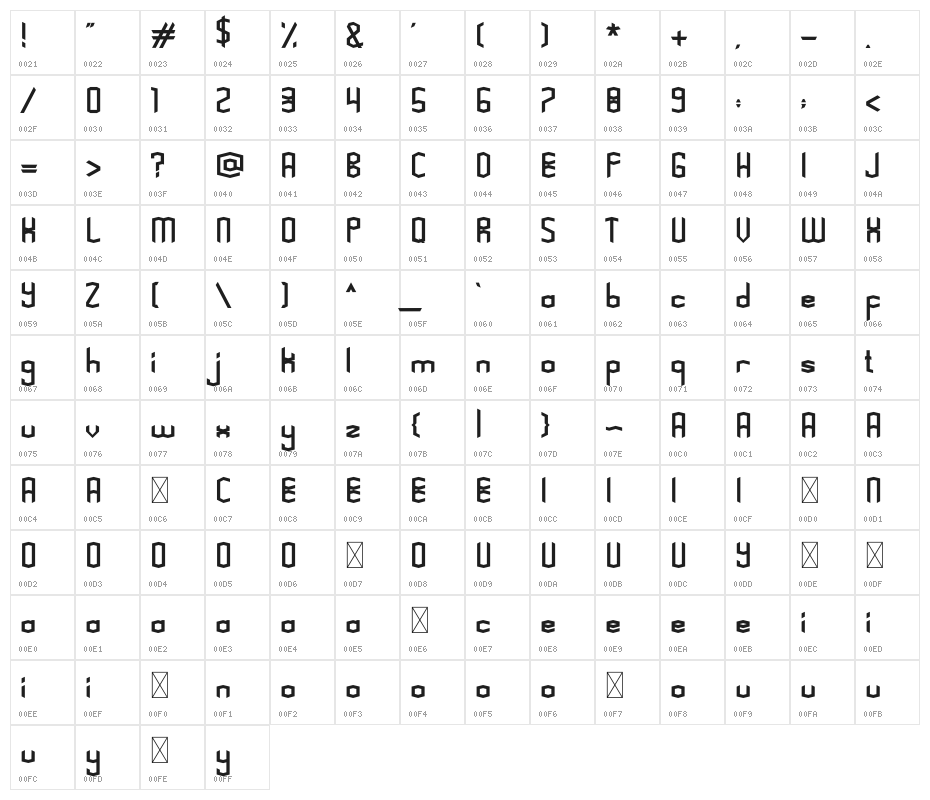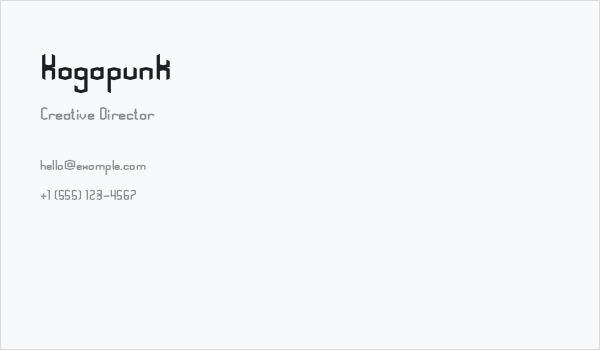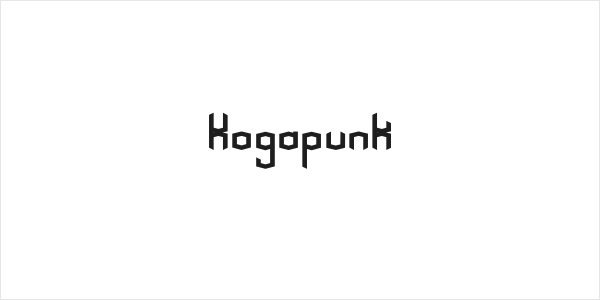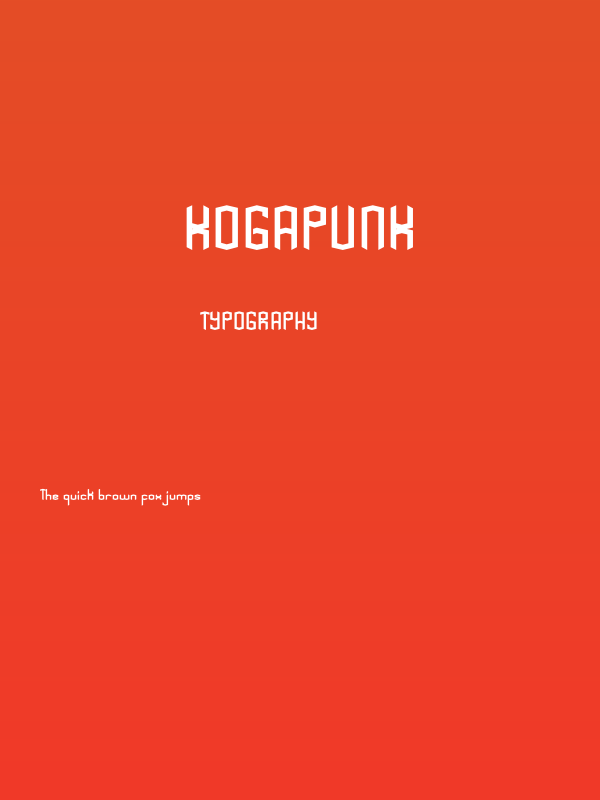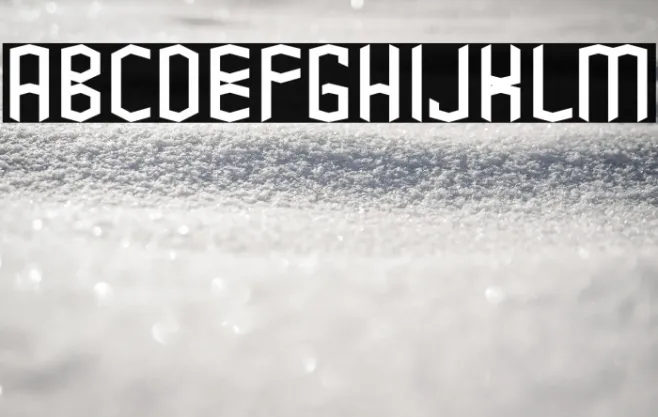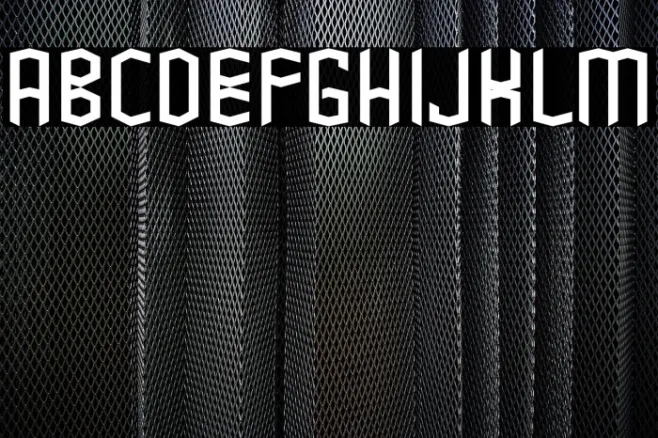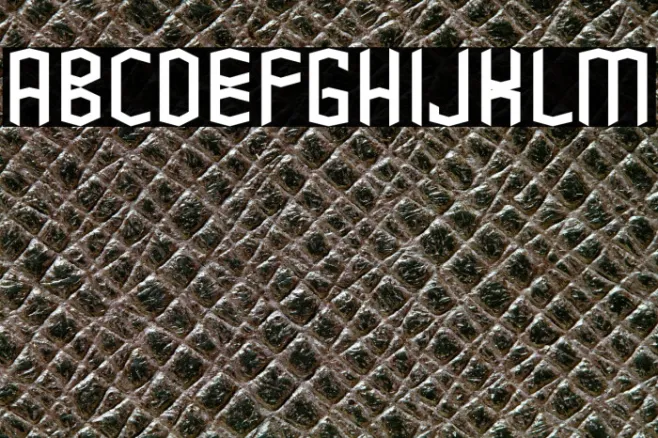
Kogapunk Font
Kogapunk Description
This font features a bold, geometric design with sharp angles and a futuristic aesthetic. The uppercase letters are uniform in height, creating a cohesive and structured appearance. The lowercase letters maintain the angular style, adding a unique twist to traditional letterforms. Numbers and special characters follow the same geometric pattern, ensuring consistency across all glyphs. The font's distinct style is reminiscent of digital or cyberpunk themes, making it ideal for projects that require a modern and edgy look.
| Proposed Projects | Ideal for digital art, video game design, sci-fi book covers, and tech branding. |